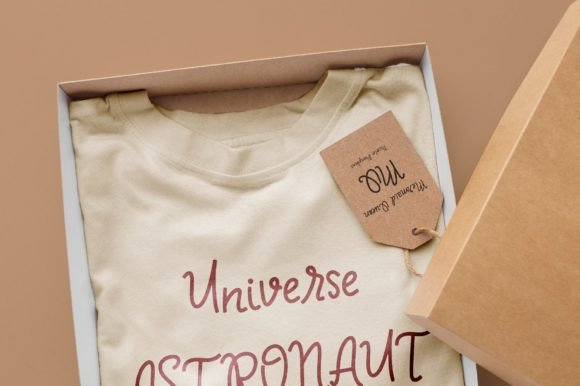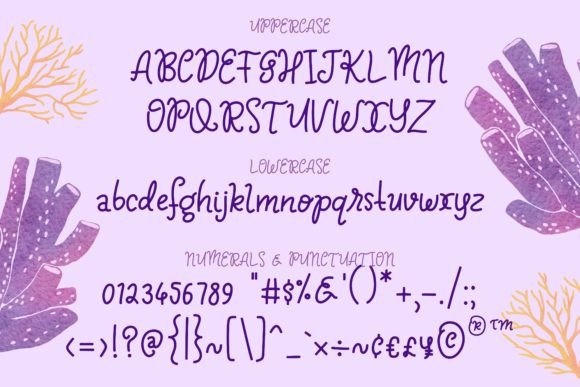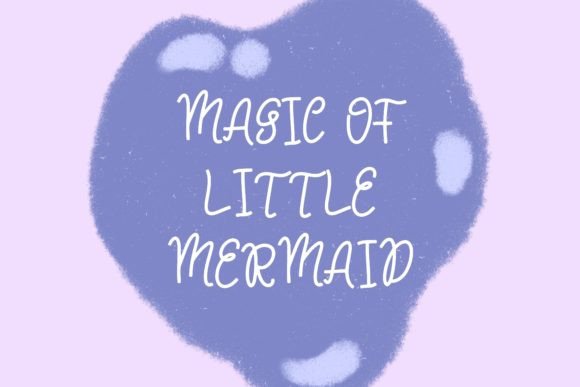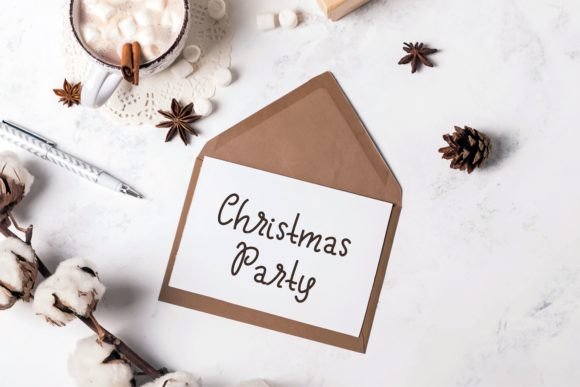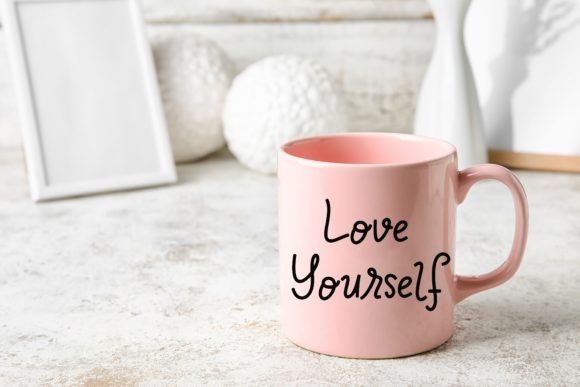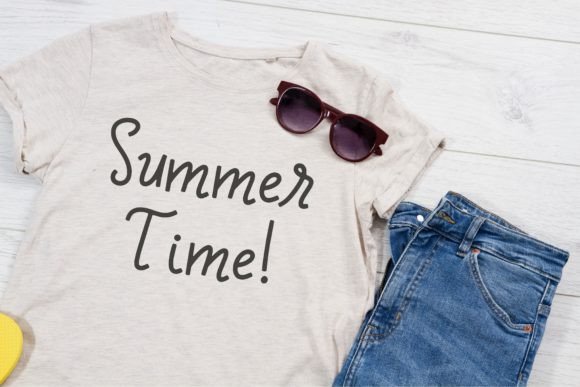
Introduction to Mermaid Queen Font
As you sit at your desk, surrounded by scribbled notes and half-finished designs, you suddenly get that spark of creativity. Your mind starts racing with ideas for a new project, and you can’t wait to bring them to life. Whether you’re a seasoned designer or just starting out, having the right design resource can make all the difference. For those looking to add a touch of magic to their creative project, look no further than the Mermaid Queen Font.
This adorable handwritten font is perfect for creating quotes, logos, or any lettering product that needs a dash of whimsy. With its high-quality design and transparent background, it’s a great addition to any design arsenal. And the best part? It’s free to download, making it an invaluable resource for designers on a budget.
- High-quality, decorative font perfect for creative projects, including invitations, posters, and more.
- Includes a wide range of characters, including uppercase and lowercase letters, numbers, and special characters.
- Designed with a unique, whimsical style that’s sure to add a touch of magic to any creative project.
Honest Review: Mermaid Queen Font
As a designer, I’m always on the lookout for unique and high-quality design resources to elevate my creative projects. The Mermaid Queen Font is one such find that caught my attention with its whimsical and dreamy aesthetic. I downloaded it for free and put it to the test in various design scenarios.
What works well: ✨ The Mermaid Queen Font’s delicate, cursive script is perfect for creating a sense of wonder and enchantment in your designs. It’s especially effective for branding, invitations, and packaging. The font is also highly customizable, allowing you to adjust the opacity and size to suit your needs.
However, there are some limitations: ⚠️ The font doesn’t have a transparent background option, which can make it difficult to use in certain design scenarios where a see-through background is required. Additionally, the font is only available in a limited number of weights and styles, which may limit its versatility.
Overall, I’m impressed with the Mermaid Queen Font’s high quality and unique design. While it may have some limitations, it’s a valuable addition to any designer’s toolkit, especially for those working on creative projects that require a touch of magic.
- High-quality design with a unique aesthetic
- Perfect for creative projects like branding, invitations, and packaging
- Customizable opacity and size
- No transparent background option
- Limited number of weights and styles
Getting the Most Out of Mermaid Queen Font
For the best results, use the Mermaid Queen Font in a creative project that showcases its unique features, such as a mermaid-themed poster or invitation. Experiment with different font sizes and colors to add visual interest to your design. With a little creativity, the Mermaid Queen Font can elevate your project to the next level.
The Mermaid Queen Font is perfect for a variety of design projects, including:
- Mermaid-themed parties and events
- Underwater-inspired designs
- Beach-themed posters and flyers
- Wedding invitations and decorations